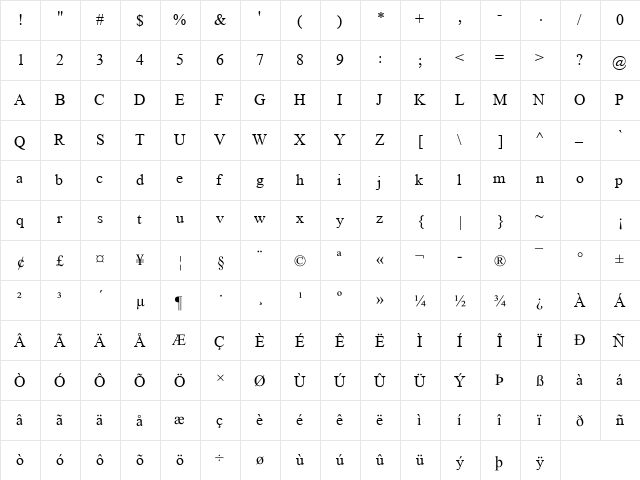
Angsana New Regular
Design Context for Angsana New Typeface
Angsana New offers clean, dependable letterforms without strong stylistic allegiance, making it a practical choice for designers who need flexibility.
Pro Tip: Pair Angsana New with a font of contrasting weight or personality to build a more expressive typographic hierarchy.